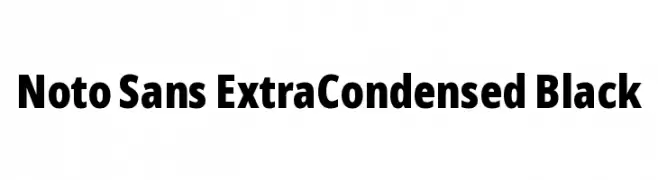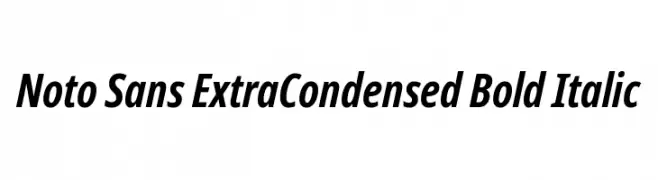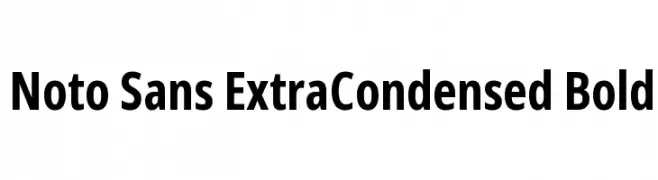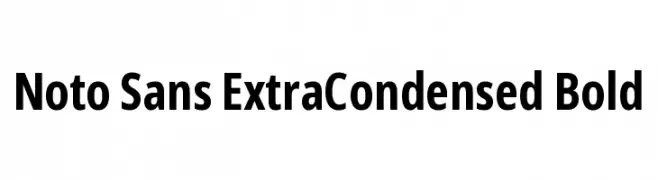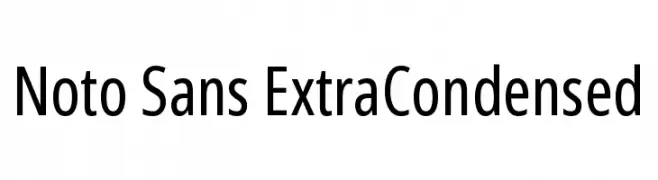
A clean, modern, extra condensed sans-serif font with uniform strokes and minimal contrast.
A modern, extra condensed sans-serif font with clean lines and high legibility.
Bold, extra-condensed sans-serif font with a strong, modern appearance.
A bold, extra-condensed sans-serif font with high contrast and tight spacing.
A bold, extra-condensed italic font with strong visual impact.
A bold, extra condensed italic sans-serif font with high contrast and tight spacing.
A modern, bold, extra condensed sans-serif font with clear, uniform strokes.
A modern, bold, extra condensed sans-serif typeface with strong visibility.
A modern, extra-condensed, bold italic typeface with a sleek and professional appearance.
A bold, italic, extra-condensed sans-serif font with a modern and dynamic style.